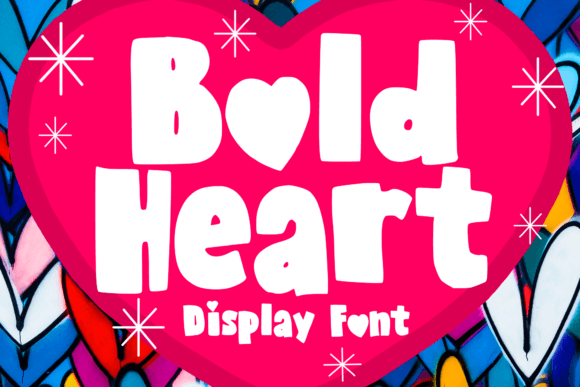
Have you ever stumbled upon a font that makes you feel like you’re about to create something truly special? For many designers, this moment comes when they discover the perfect combination of style and personality. For me, it was the moment I laid eyes on the Bold Heart Font.
This bold and fun handwritten font is a designer’s dream come true. With its versatility and playful touch, it can be used for anything from t-shirts and book designs to packaging and greeting cards. Whether you’re looking to add a casual vibe to your projects or want to create something truly unique for Valentine’s Day, the Bold Heart Font is sure to be a hit.
Bold Heart Font Key Features
- Unique Characteristics: Features a bold, modern design with a heart-shaped motif, ideal for creative projects and branding
Bold Heart Font Review
Overall, I think the Bold Heart Font is a solid choice for designers looking to add some personality to their projects. ✨ Here are some things that work well:
- Uniqueness: The Bold Heart Font stands out from the crowd with its bold, playful strokes and heart-shaped letterforms.
- Emotional Connection: The font is perfect for conveying a sense of confidence and courage, making it ideal for branding and advertising projects.
- Versatility: The Bold Heart Font works well in both digital and print applications, from posters and flyers to social media graphics and websites.
- Readability: In smaller font sizes, the Bold Heart Font can be difficult to read, especially for those with visual impairments.
- Limited Font Sizes: The font is not as effective in larger font sizes, where it can appear overly bold and overwhelming.
Overall, I would recommend the Bold Heart Font for designers who want to add a touch of whimsy and personality to their projects. With its unique letterforms and emotional connection, it’s a great choice for branding and advertising projects. However, it’s essential to use it judiciously, taking into account the limitations mentioned above.
For the most out of the Bold Heart Font, use it sparingly to add emphasis to key messages or headings. You can also pair it with other fonts to create a visually appealing combination.
The Bold Heart Font is ideal for creating eye-catching headlines, social media posts, and marketing materials. It’s also a great choice for adding a touch of personality to wedding invitations, party decorations, and other special occasions.
Alternatives to Bold Heart Font for Designers
Great Vibes is a beautiful, modern script font with a touch of elegance. It’s perfect for designers who want to create a romantic, whimsical feel in their projects. Great Vibes is a more elegant alternative to Bold Heart Font, with a smoother and more refined look.
Carolyna Pro is a sophisticated, luxurious script font that exudes glamour and sophistication. It’s ideal for designers who want to create high-end, premium content. Compared to Bold Heart Font, Carolyna Pro has a more refined and polished look, making it perfect for luxury brands and high-end designs.
Alex Brush is a handwritten script font with a touch of warmth and personality. It’s great for designers who want to create a friendly, approachable feel in their projects. Compared to Bold Heart Font, Alex Brush has a more casual and relaxed look, making it perfect for blogs, social media, and other informal content.
Playfair Display is a luxurious, high-end serif font that’s perfect for designers who want to create a sense of opulence and sophistication. It’s ideal for projects that require a touch of elegance and refinement. Compared to Bold Heart Font, Playfair Display has a more formal and traditional look, making it perfect for luxury brands, high-end designs, and formal invitations.